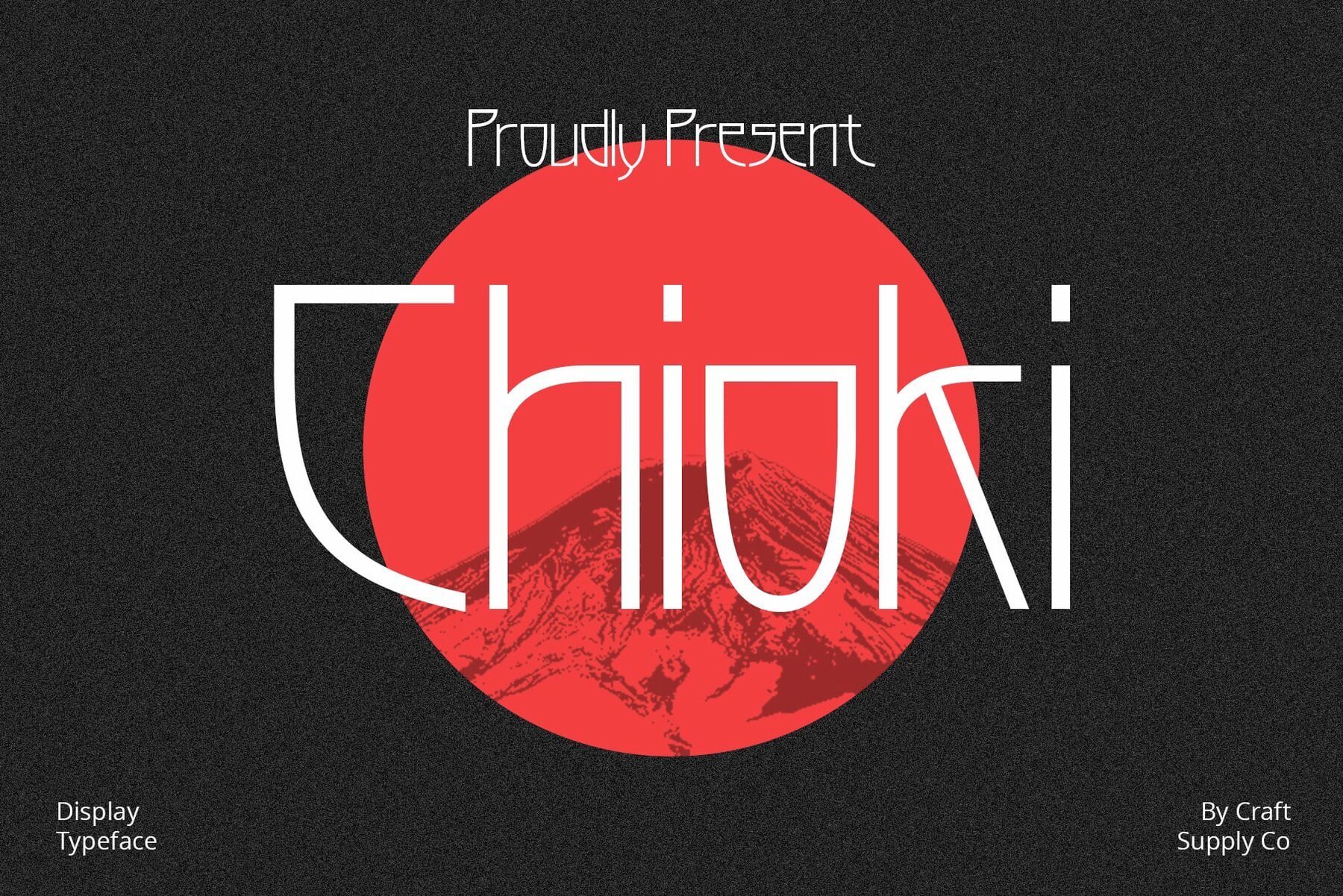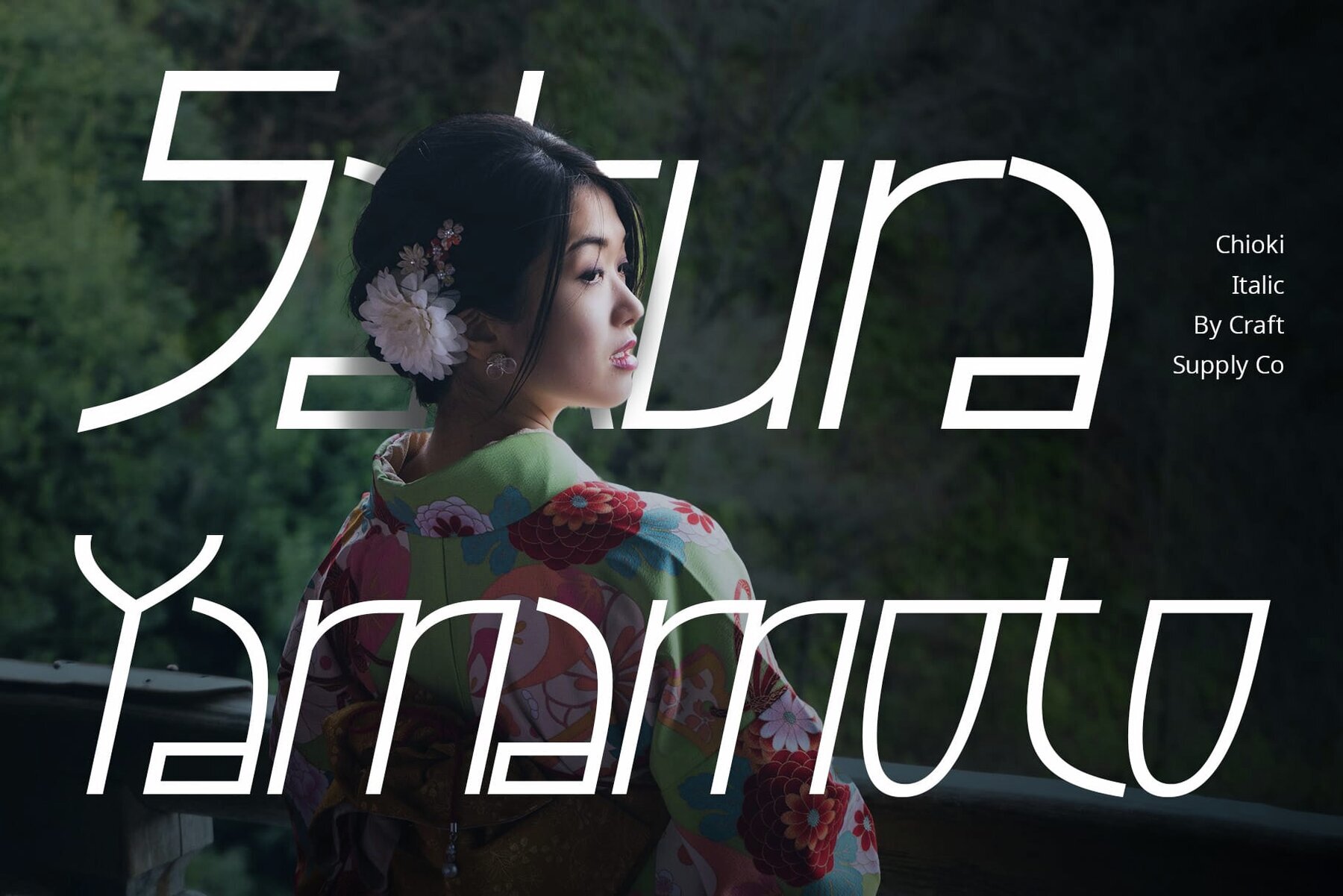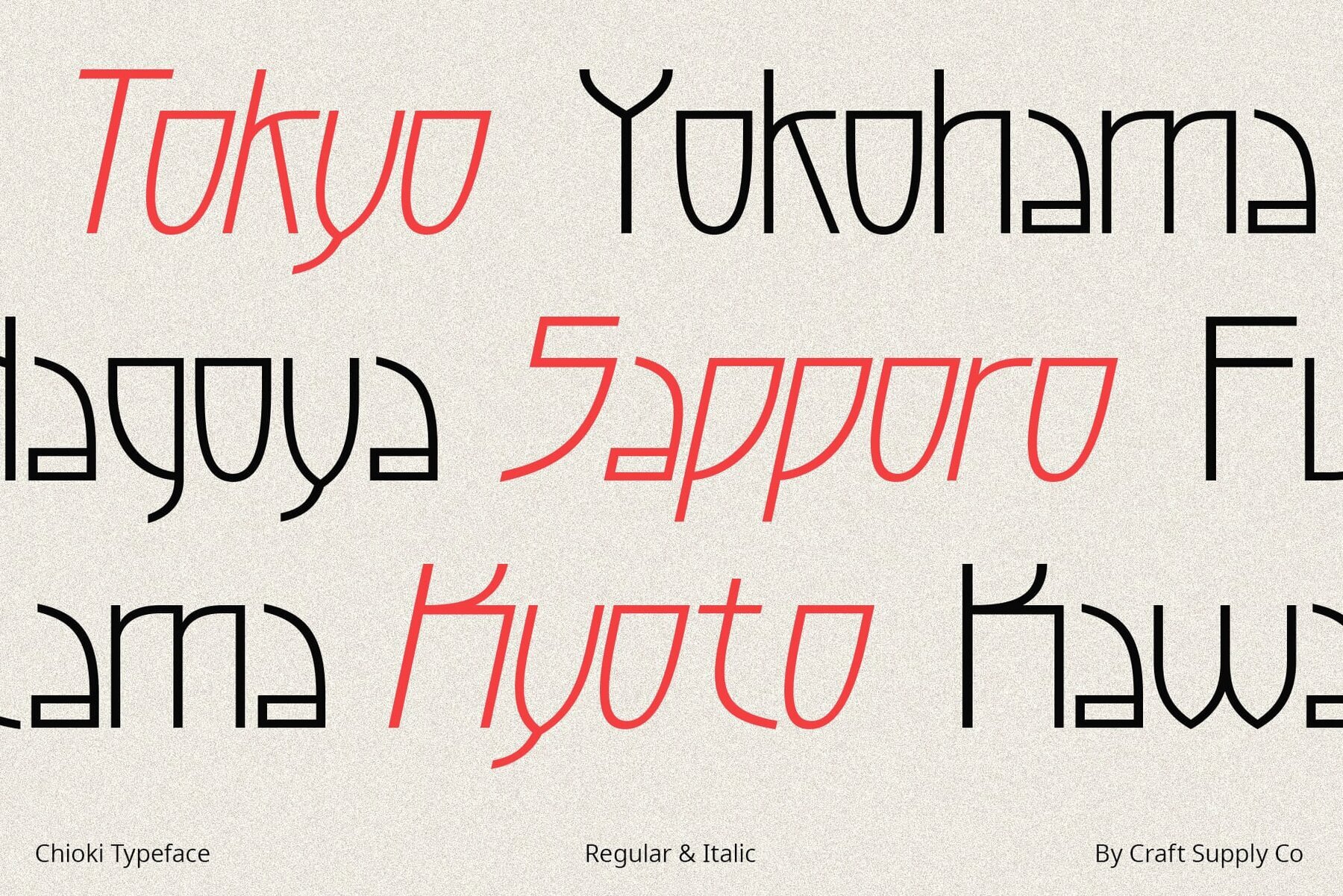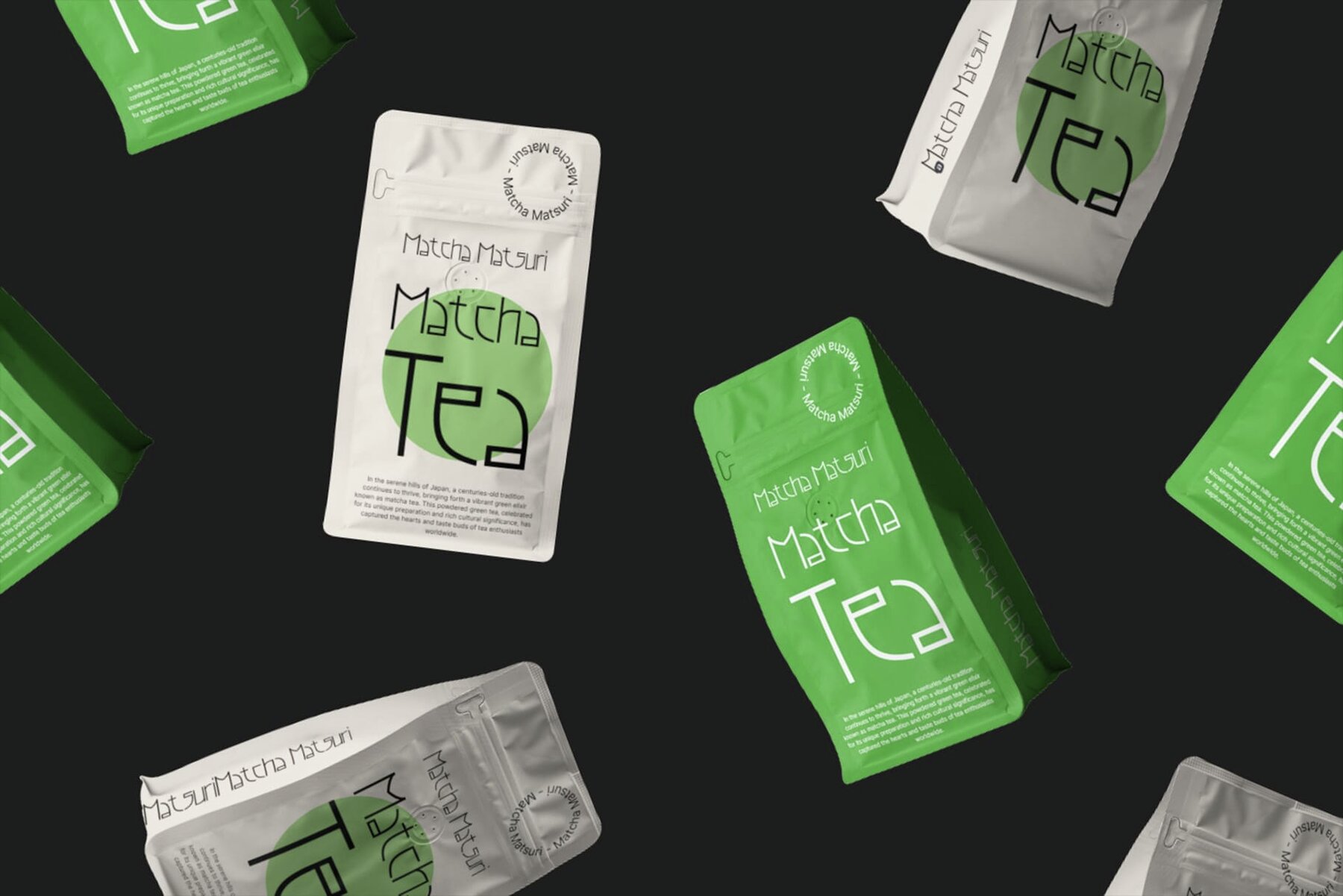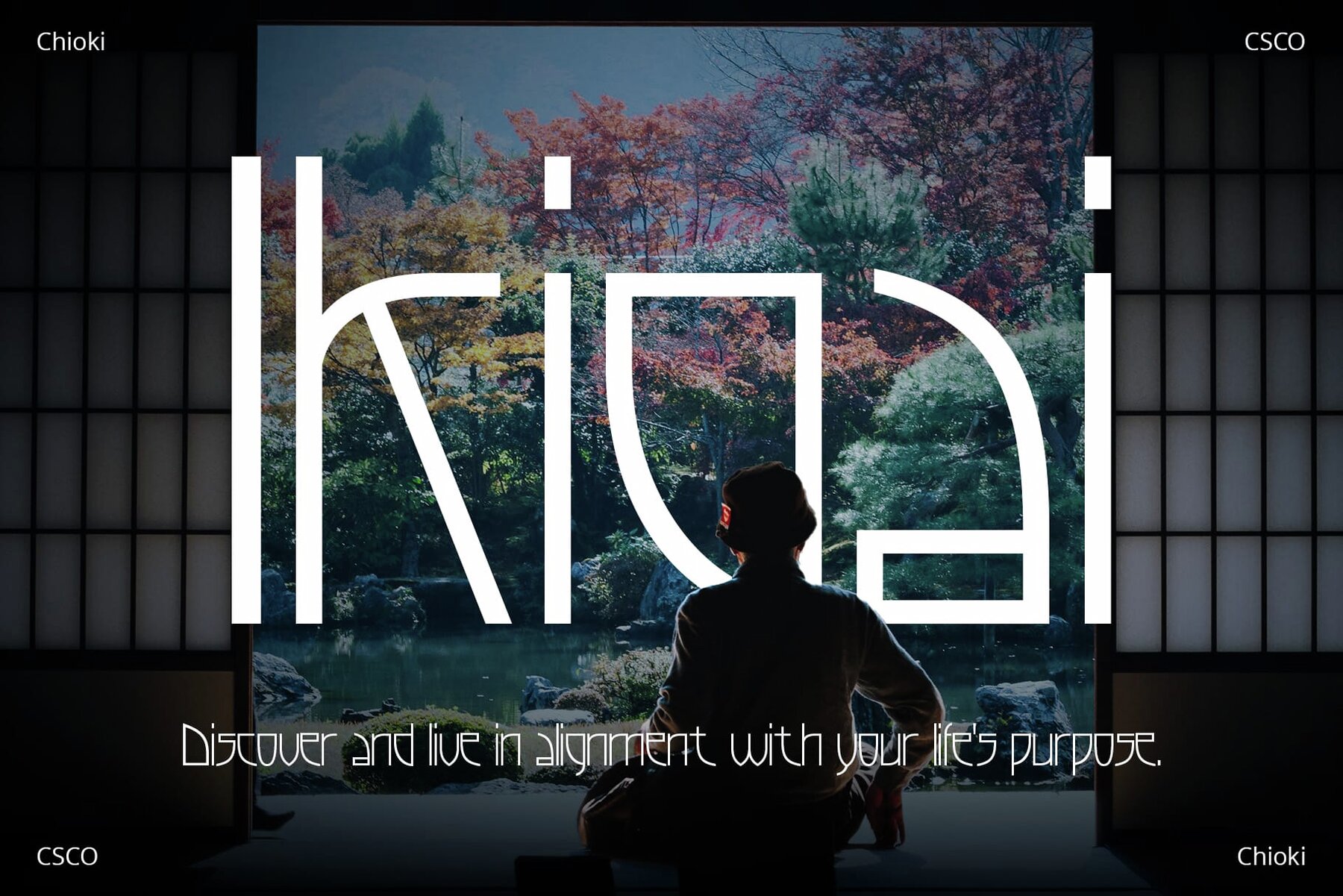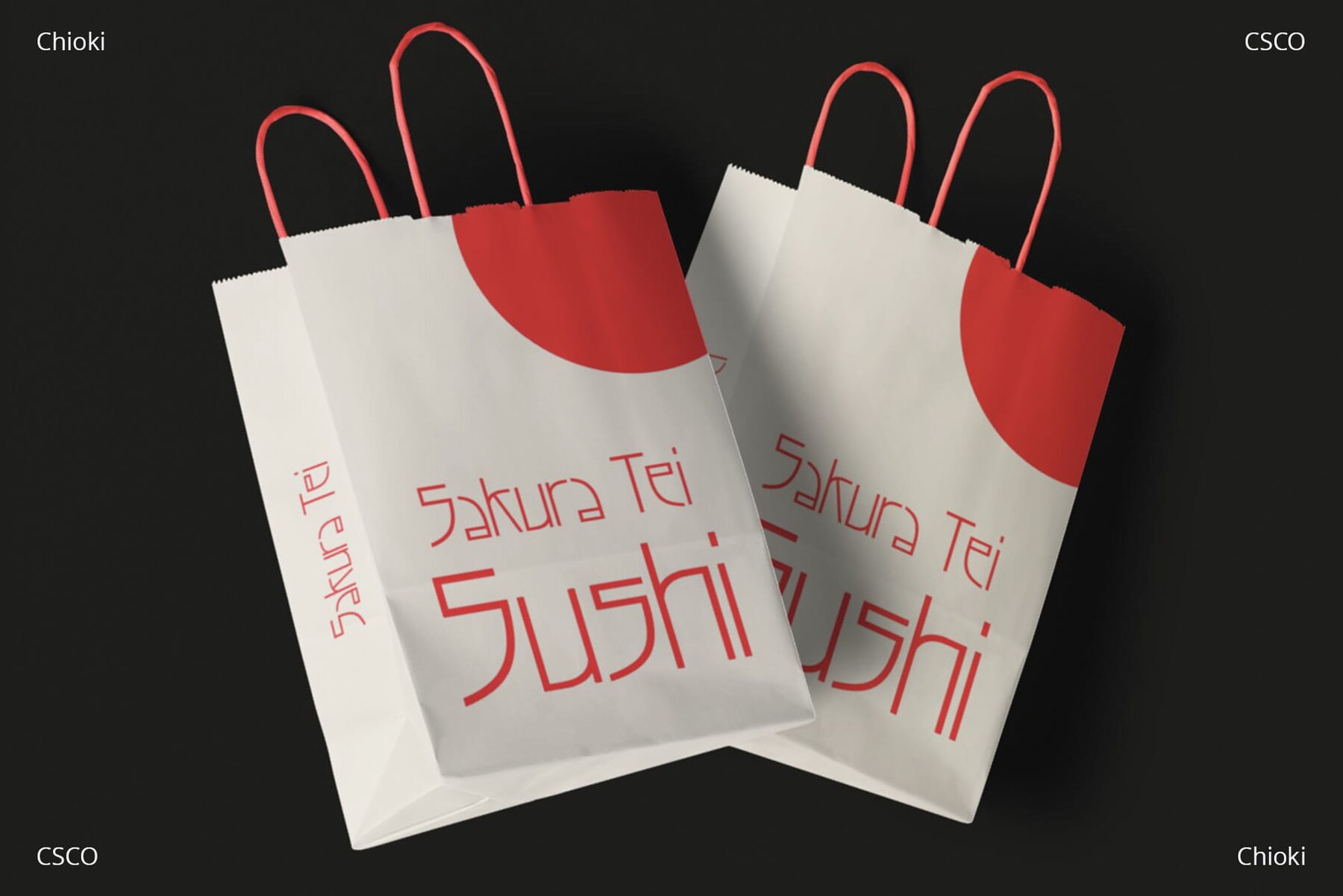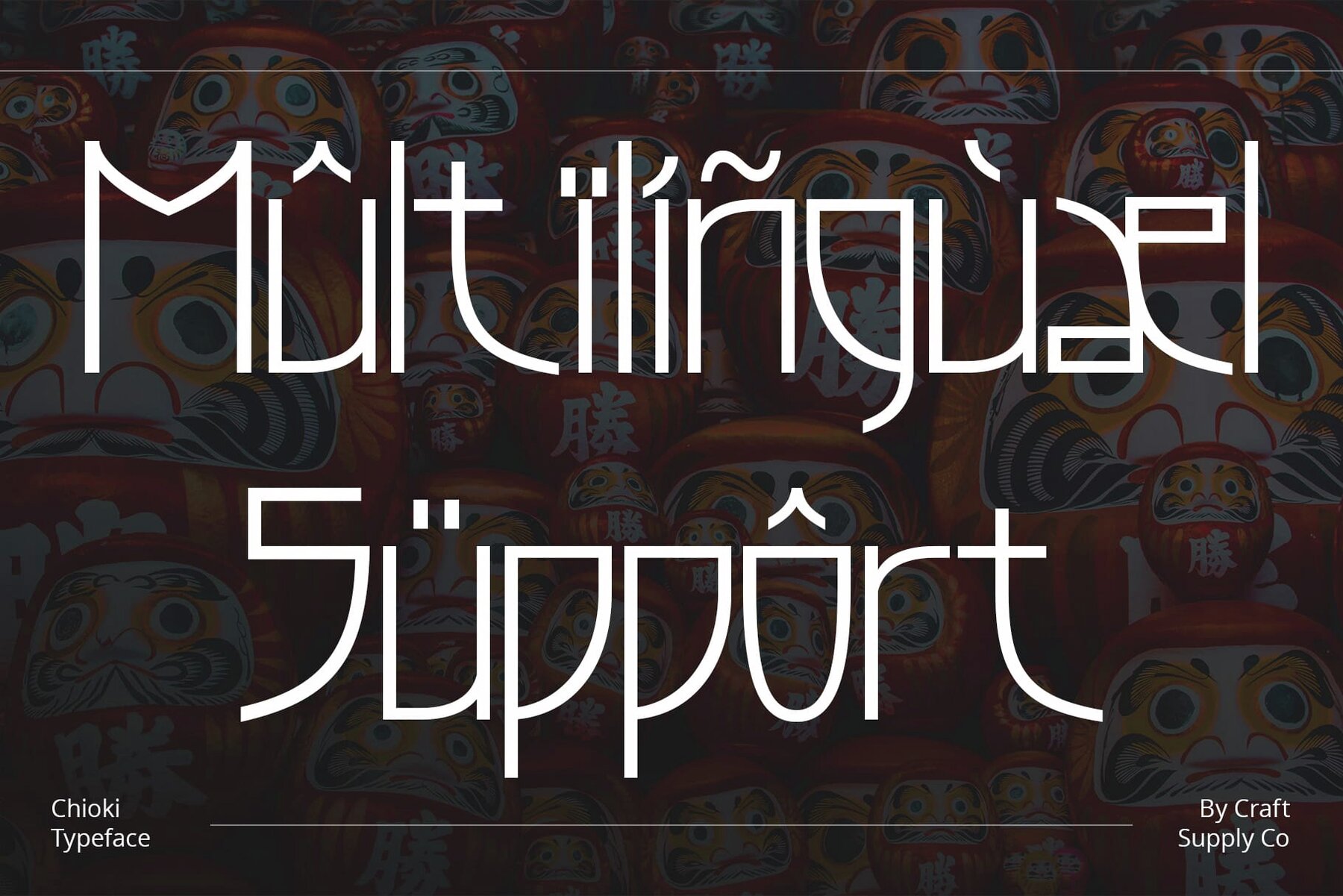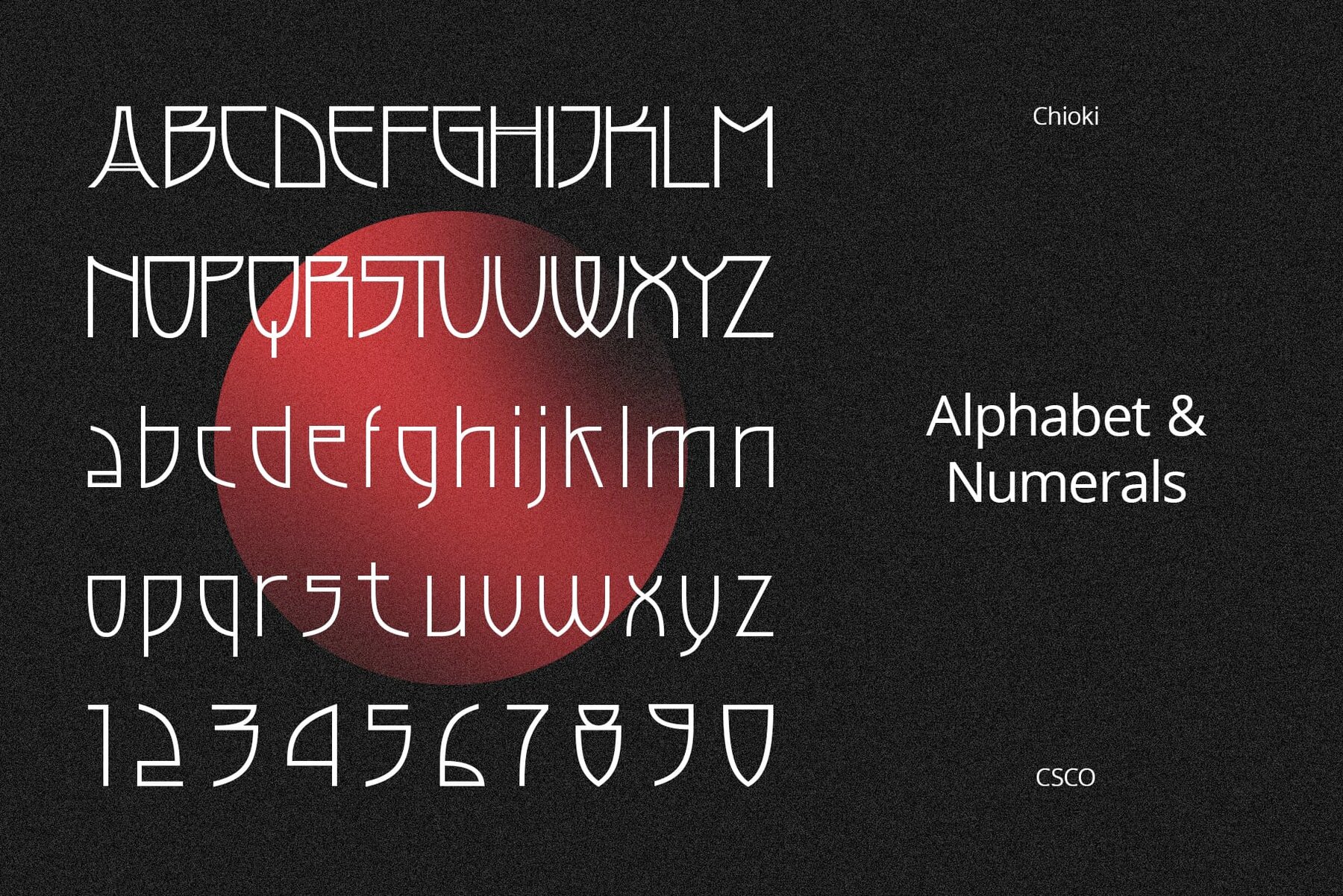
Chioki Font
Chioki, a Sans-Serif display font, stands tall, drawing inspiration from the sleek lines of Art Deco and the fluidity of Japanese Hiragana characters. Its unique design offers both sophistication and a timeless aesthetic, making it ideal for a wide range of creative applications. Incorporating the geometric precision of Art Deco design, Chioki boasts elongated letterforms that exude elegance. The Hiragana influence is evident in its fluid strokes, infusing modern typography with a touch of Japanese calligraphy. Each character tells a story of balance and grace, seamlessly blending East and West. Chioki's tall, slender structure makes it a contemporary powerhouse for eye-catching displays, branding, and editorial projects. While rooted in historical design elements, it meets today's typographic needs with versatility and style. Chioki can be used without any specialized software, making it accessible for any designer. If you have any inquiries or need assistance, please feel free to contact us. We appreciate your support in enhancing your creative projects!Chioki: A Fusion of Art Deco and Hiragana Elegance
Influences and Design
Contemporary Versatility